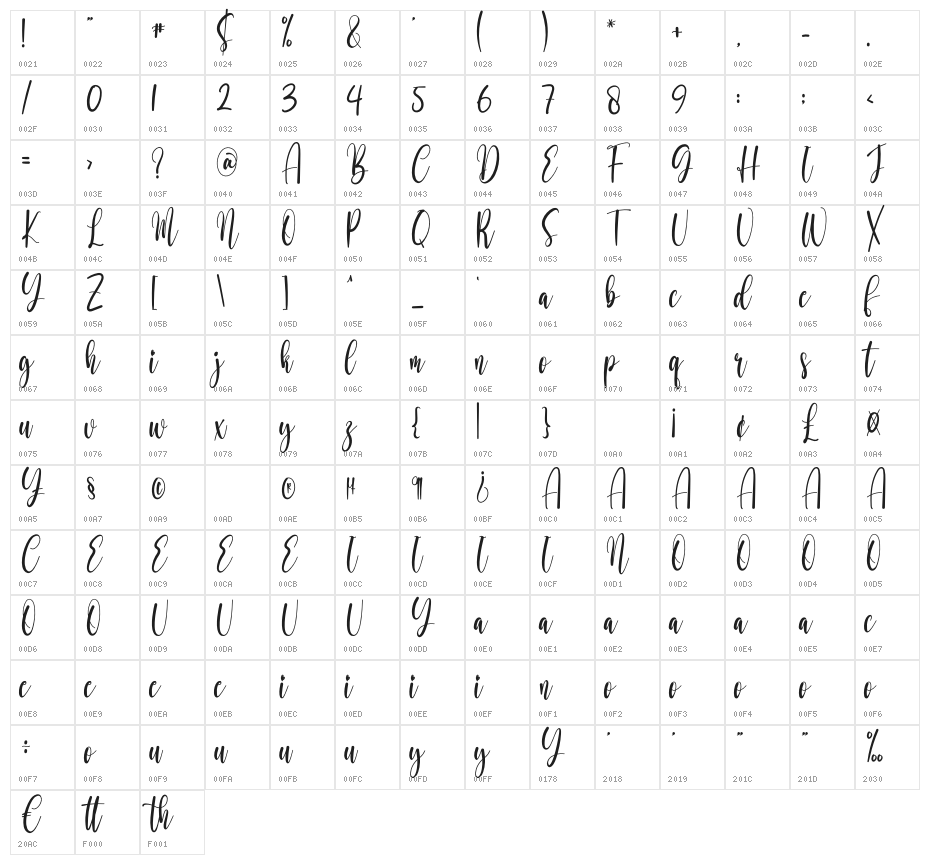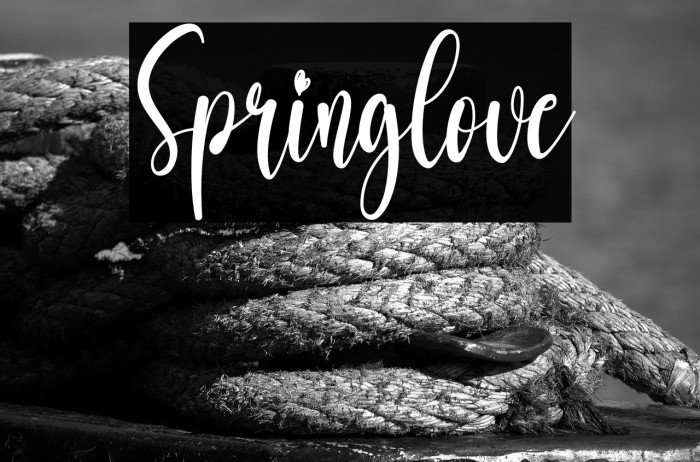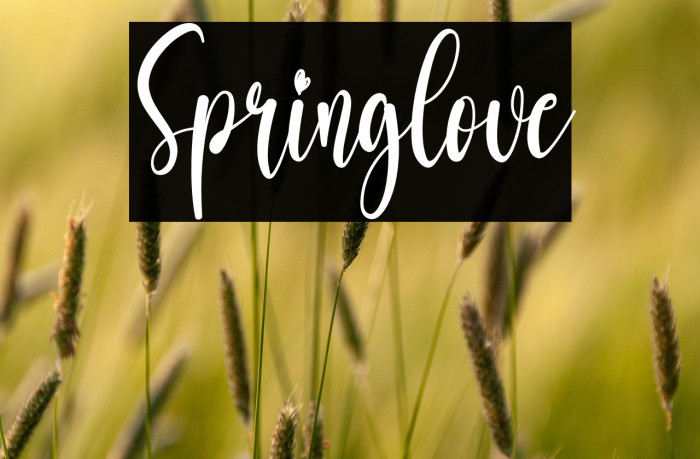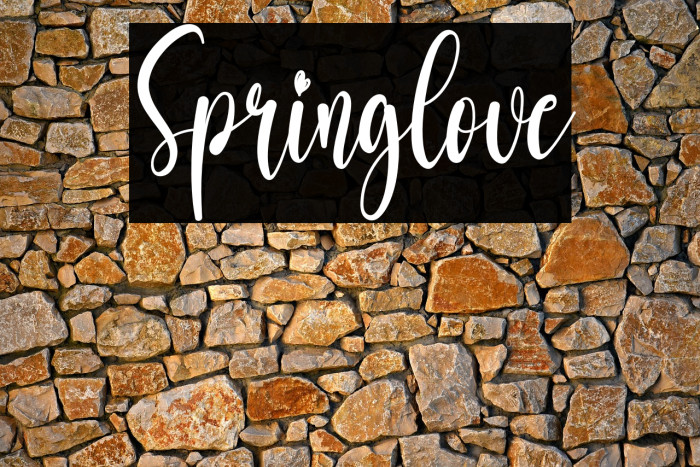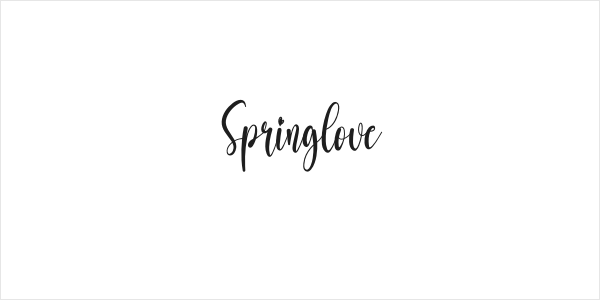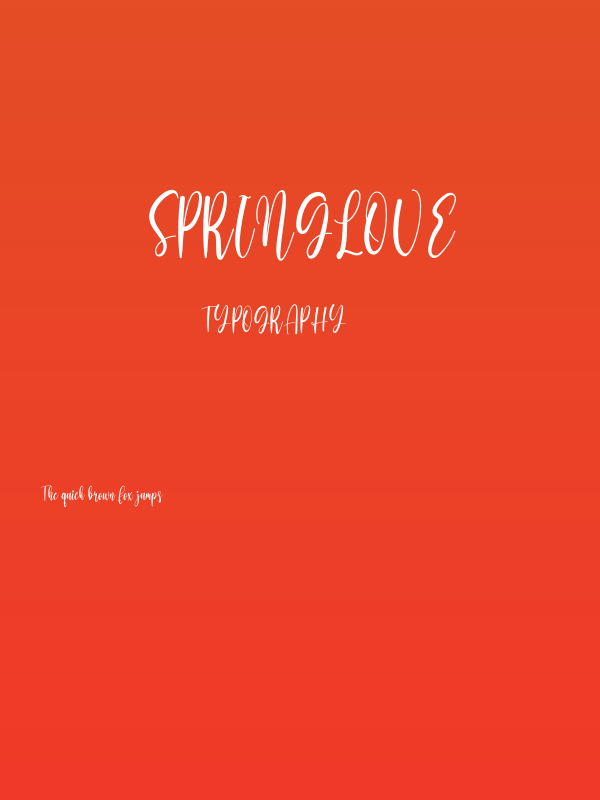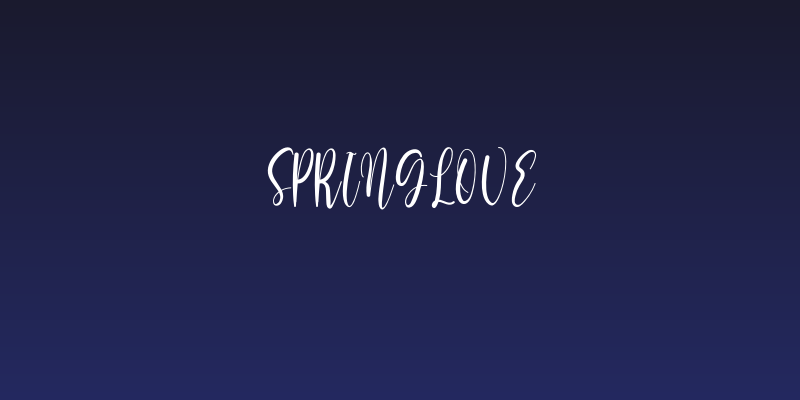
Springlove Font
Springlove Description
This font exudes a lively and playful energy, characterized by its flowing, cursive style. The letters are elegantly connected, with a natural handwritten feel that adds a personal touch to any design. The uppercase letters are bold and slightly elongated, while the lowercase letters maintain a consistent flow with charming loops and curves. The numbers and special characters complement the alphabet with a similar whimsical style, making it versatile for various creative projects. The overall appearance is both modern and classic, suitable for adding a touch of elegance and personality.
| Use Case | Logos, Invitations, Social Media |
| Proposed Projects | Ideal for wedding invitations, greeting cards, branding, and social media graphics. |